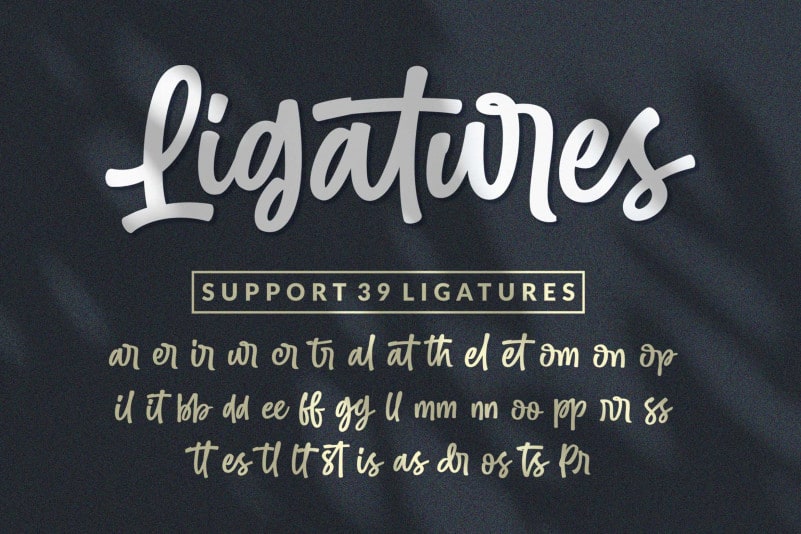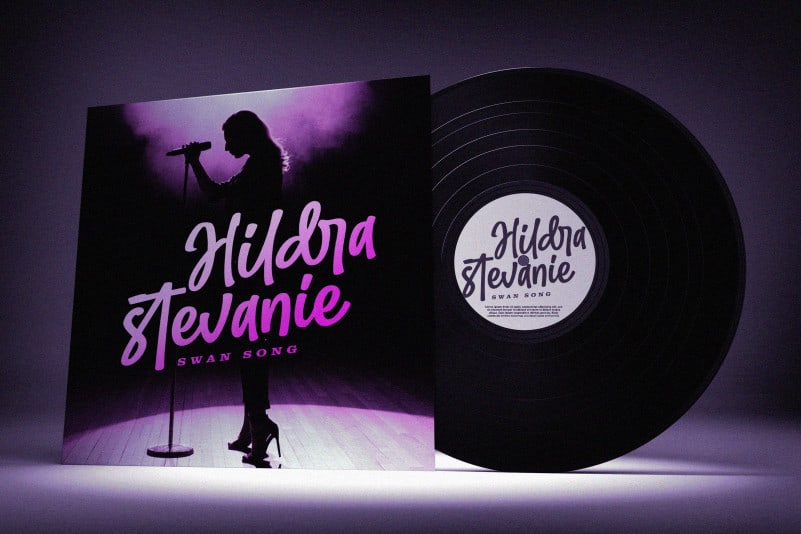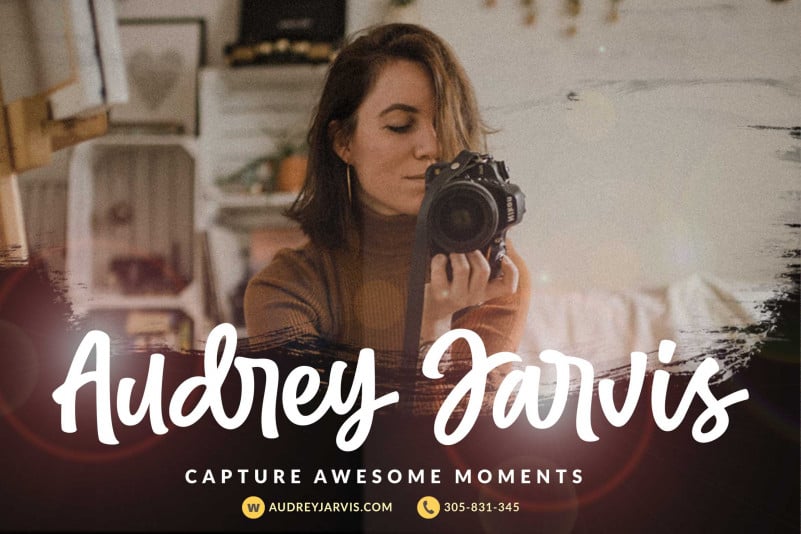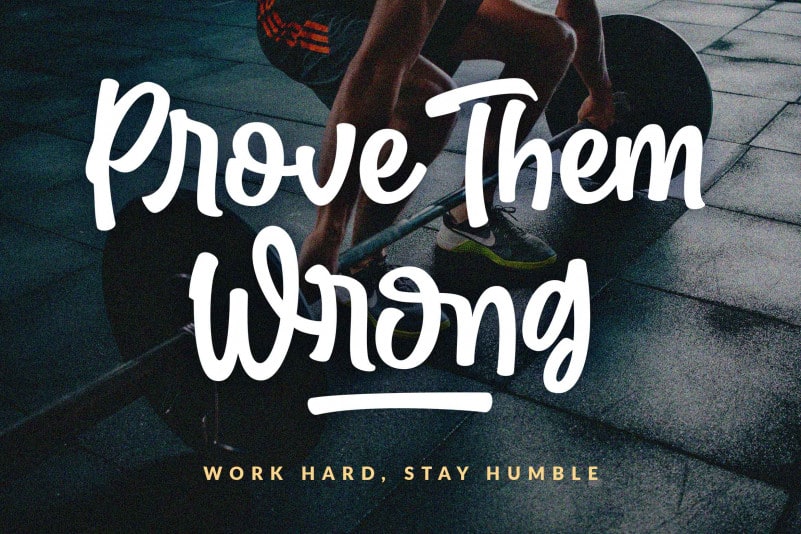
Outbreak / Bold Handwritten Font
Outbreak – Bold Handwritten Font is a Bold handwritten Script font, this font come with handwritten style. It looks original and can be used for all your project needs. Each glyph has its own uniqueness and when meeting with others will provide dynamic and pleasing proximity. This font erfect for your branding and any awesome project, such as : logos, invitations, stationery, wedding designs, social media posts, advertisements, product packaging, product designs, labels, photography, watermarks, special events and much more !